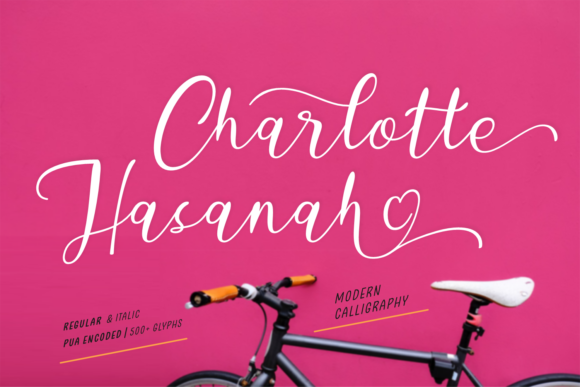
Unleashing the Romance: Discover the Enchanting Charlotte Hasanah Font
There’s nothing quite like the thrill of stumbling upon a new font that sparks your creativity. Whether you’re designing a wedding invitation, a birthday card, or a romantic novel cover, the right font can make all the difference. And, if you’re anything like me, you’ll fall head over heels for the charming Charlotte Hasanah Font.
With its elegant script and romantic flair, the Charlotte Hasanah Font is perfect for adding a touch of whimsy and sophistication to your designs. Whether you’re a professional designer or a hobbyist looking to elevate your creative projects, this font is a valuable addition to your toolkit. Its versatility and charm make it an ideal choice for a wide range of projects, from invitations and greeting cards to branding and marketing materials.
Key Features of Charlotte Hasanah Font
- Unique Characteristics: The Charlotte Hasanah Font features a beautiful, elegant script style with intricate details and flourishes, making it perfect for creating eye-catching headings and titles.
- Font Weight and Style: The Charlotte Hasanah Font is available in three font weights (Light, Regular, and Bold) and four font styles (Script, Regular, Italic, and Bold Italic), providing users with a range of options for customizing their designs.
- Scalability: The font is designed to be highly scalable, ensuring that it remains legible and beautiful at a range of sizes and resolutions, from small text to large headings.
Charlotte Hasanah Font Review
The Charlotte Hasanah font is a beautiful, elegant script font designed for various applications, from headings to body text. I really enjoy its flowing lines and connections, which ✨ create a sense of sophistication and luxury.
- ✨ Elegant and flowing lines that create a sense of sophistication.
- ✨ Suitable for various applications, from headings to body text.
- ✨ Beautiful connections between letters, which add to the font’s elegance.
- ⚠️ The font may be challenging to read in smaller sizes, as the connections between letters can become lost.
- ⚠️ It may not be suitable for bold or condensed text, as the font’s elegant lines can become distorted.
Overall, I think the Charlotte Hasanah font is a great addition to any designer’s toolkit. Its elegant lines and sophisticated feel make it perfect for applications where luxury and sophistication are key. However, it’s essential to be aware of its limitations and use it accordingly.
Here are some tips to help you get the most out of the Charlotte Hasanah font:
- Use the font for headings and titles to add a touch of elegance.
- Pair the font with other elegant fonts for a cohesive look.
The Charlotte Hasanah font is suitable for:
- Formal event invitations and announcements.
- High-end branding and marketing materials.
Alternatives to Charlotte Hasanah Font
Playfair Display is a luxurious, high-end font ideal for formal invitations, wedding announcements, and luxury branding. It features elegant connections between letters, making it perfect for adding a touch of sophistication to any design. Compared to Charlotte Hasanah Font, Playfair Display is more formal and has a more ornate feel, while Charlotte Hasanah Font is more modern and versatile.
Carolyna Pro is a modern script font perfect for creating elegant and refined designs. It’s ideal for wedding invitations, branding, and advertising materials. Compared to Charlotte Hasanah Font, Carolyna Pro is more fluid and has a softer feel, while Charlotte Hasanah Font is more geometric and modern.
What is the recommended font size and line height for optimal readability with the Charlotte Hasanah Font?
For optimal readability, we recommend using a font size between 12 and 18 points, with a line height of at least 1.5 to 2 times the font size. This will ensure clear and comfortable reading experiences for your audience.